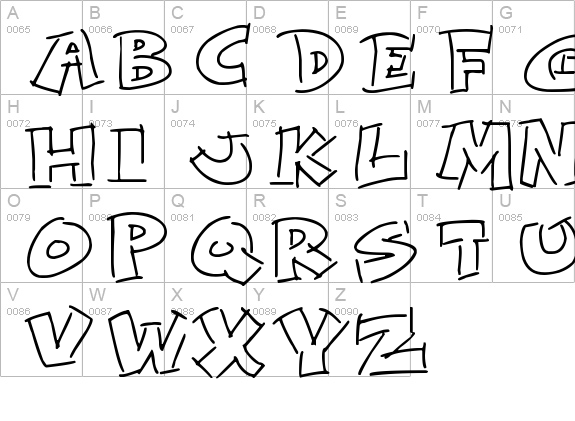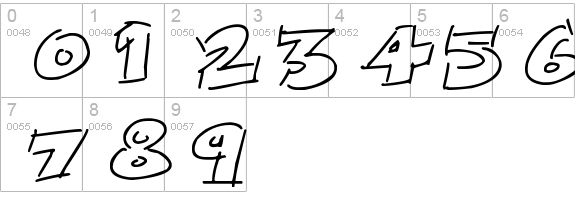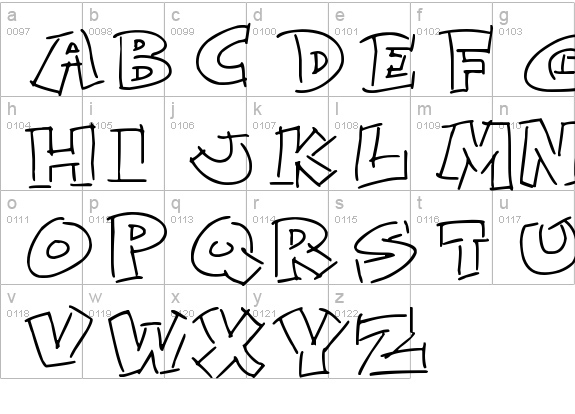
Rough Comic Font Details
Rough Comic is a free for personal use font in the General > Outline category, designed by Darrell Flood. It has been downloaded 199 times and is available for Windows, Mac and Linux.
The Rough Comic font exudes a bold and edgy aesthetic, perfect for adding a touch of personality and playfulness to your designs. Its rough and jagged edges give it a distinctive hand-drawn look, making it ideal for comic books, posters, and other creative projects that require a touch of whimsy. This font is versatile and can be used for both headlines and body text, providing flexibility in your design choices.